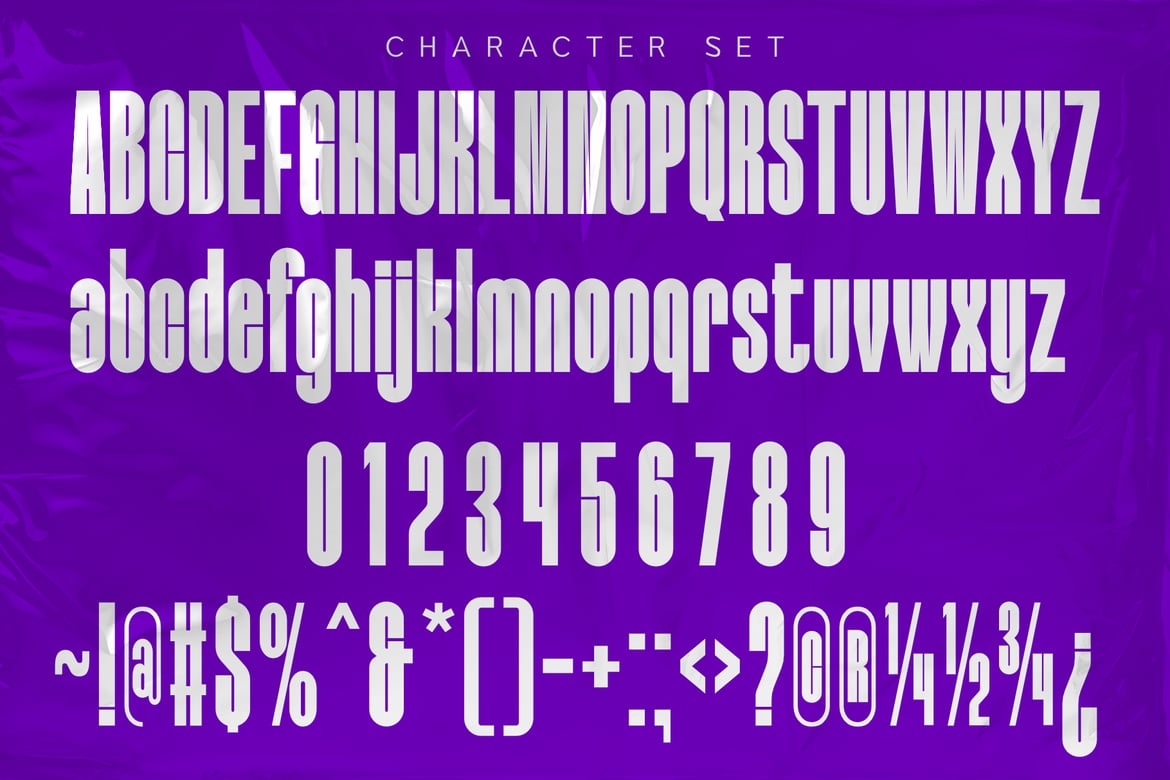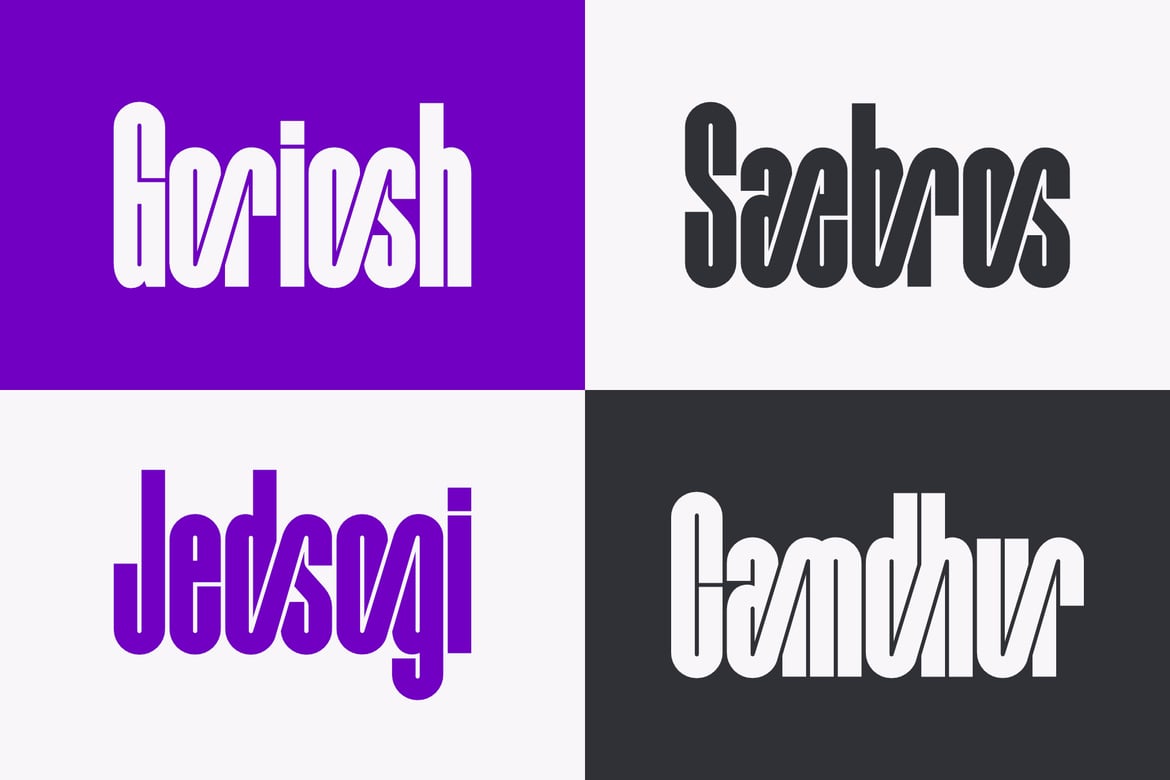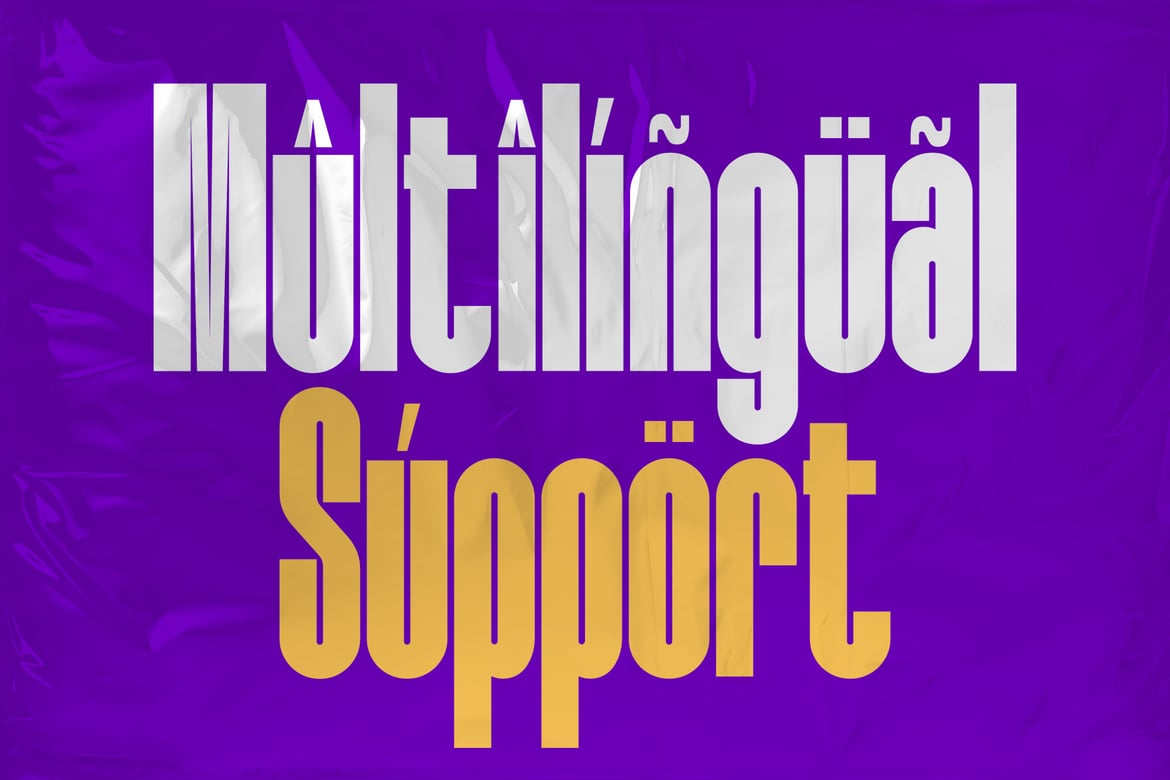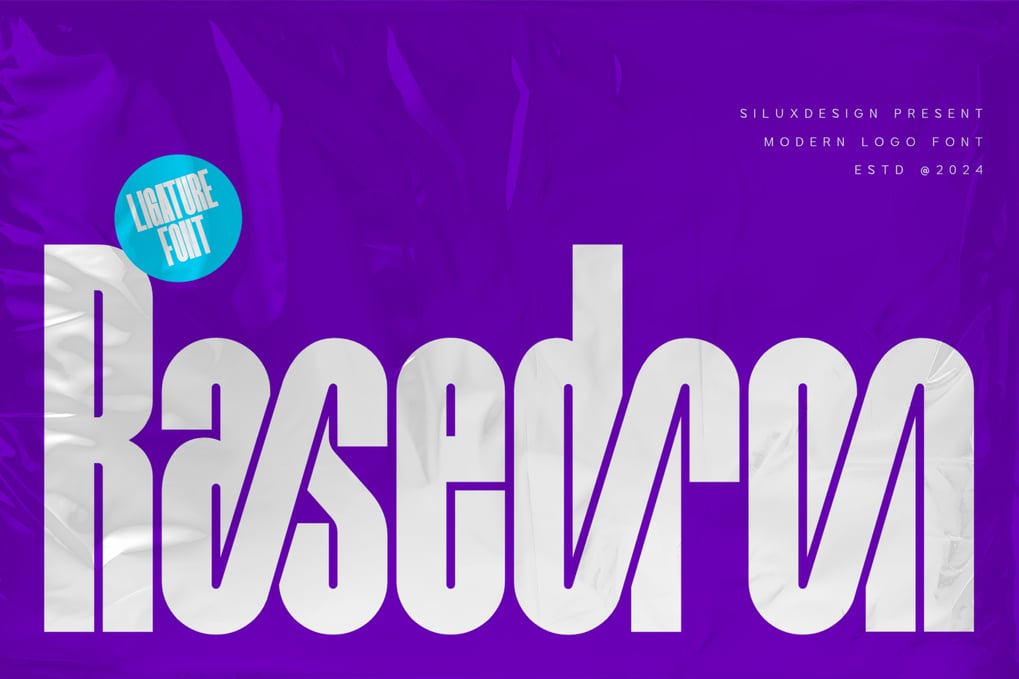
Rasedron – Modern Logo Font
Key Features:
* Stylish Ligatures: Enhance your text with elegant ligatures that bring a distinctive flair to your designs.
* Extensive Character Set: Includes uppercase letters, numbers, punctuation, and special characters to meet all your design needs.
* Versatile Usage: Ideal for logos, headlines, branding projects, and more, ensuring versatility across various mediums.
* Crisp and Clear: Designed with clarity in mind, Rasedron maintains readability even in smaller sizes.
* Modern Aesthetic: A clean, minimalist design that fits perfectly in contemporary design trends.
* Multilingual Support: Supports a wide range of languages, making it accessible for global audiences.